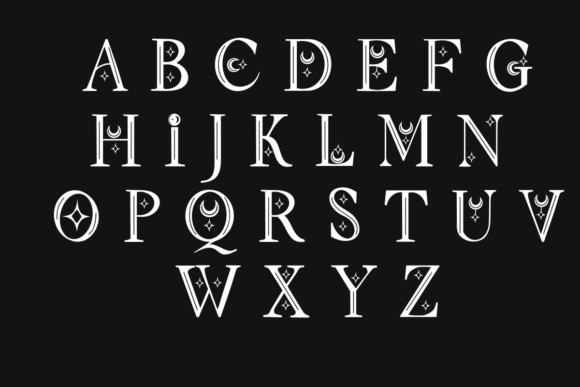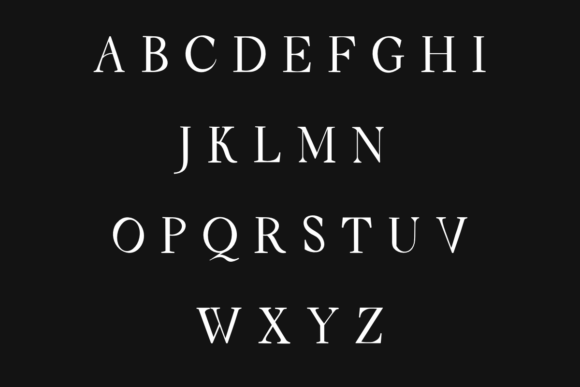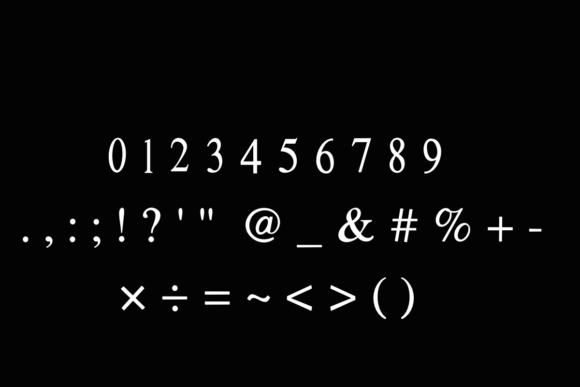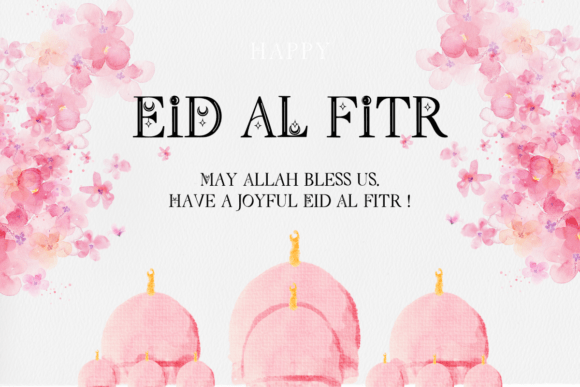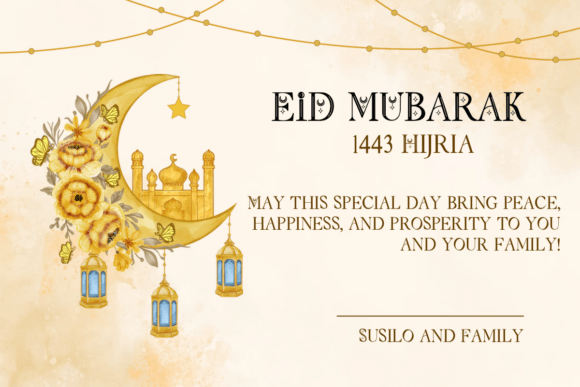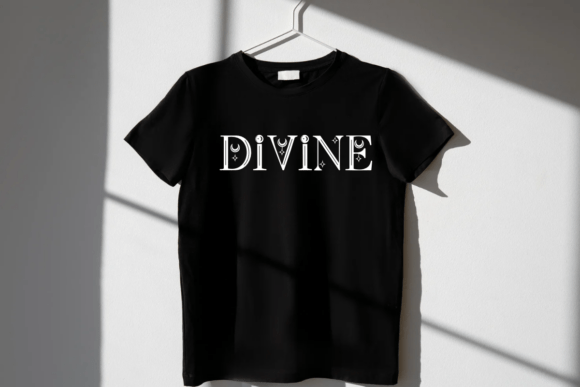
Introducing Divine Font: Elevate Your Designs with Celestial Elegance
In the realm of typography, few fonts capture the essence of mysticism and elegance as beautifully as Divine Font. This enchanting typeface seamlessly blends celestial charm with the timeless sophistication of serif style, making it an ideal choice for designers and crafters seeking to infuse their projects with an ethereal touch.
The Essence of Divine Font
Divine Font is more than just a collection of letters; it’s an experience. Each character is meticulously crafted to incorporate magical moon and star embellishments, transporting your designs to a realm of wonder and spirituality. Whether you’re working on spiritual branding, tarot cards, fantasy book covers, or any project that requires a dash of the mystical, Divine Font is the perfect companion.
Key Features of Divine Font
- Celestial Elegance: Divine Font boasts an otherworldly charm, thanks to its unique blend of serif style and celestial embellishments. Each letter is adorned with moons and stars, adding a touch of magic to your designs.
- Timeless Appeal: The serif style of Divine Font ensures that your designs remain timeless and sophisticated, avoiding the fleeting trends of modern typography.
- Versatility: From spiritual branding to fantasy literature, Divine Font’s versatility shines through. It’s suitable for a wide range of applications, including but not limited to tarot cards, fantasy book covers, and more.
- Ethereal Touch: The magical elements within each character provide an ethereal quality, perfect for designs that aim to inspire, mystify, or enchant.
Applications of Divine Font
The possibilities with Divine Font are endless, but here are some applications that truly showcase its potential:
- Spiritual Branding: Create a lasting impression with your brand’s identity by incorporating Divine Font into your logo, packaging, or marketing materials. The mystical vibe of the font will undoubtedly resonate with your audience.
- Tarot Cards and Oracle Decks: Add an air of mystery and authenticity to your tarot or oracle deck designs. Divine Font’s celestial elements complement the spiritual themes often associated with these products.
- Fantasy Book Covers: Make your fantasy novel stand out on bookstore shelves or digital platforms. The enchanting quality of Divine Font will capture potential readers’ attention, hinting at the magical journey within the pages.
- Stationery and Invitations: For those special occasions, such as weddings, baby showers, or birthdays, Divine Font can add a whimsical and memorable touch to your stationery or invitations.
Tips for Using Divine Font
To maximize the impact of Divine Font in your designs, consider the following tips:
- Balance is Key: While the celestial embellishments are a highlight, ensure they complement your design rather than overpowering it. Balance Divine Font with simpler elements to maintain visual harmony.
- Color Choices: Enhance the mystical feel with a thoughtful color palette. Soft pastels, gold, silver, and dark blues can amplify the ethereal and celestial vibe.
- Experiment with Sizes: Play with different font sizes to create visual hierarchy and emphasis. Larger sizes can showcase the intricate details, while smaller sizes maintain readability.
Divine Font offers a unique opportunity for designers and crafters to elevate their projects with a touch of celestial elegance and timeless sophistication. Its magical moon and star embellishments within each character not only add an ethereal quality but also ensure your designs stand out in a world of ordinary typography. Whether you’re delving into spiritual branding, crafting tarot cards, or conjuring fantasy book covers, Divine Font is your gateway to creating enchanting, memorable designs.
Embark on a journey of mystical creativity with Divine Font. Let its divine charm inspire your next project, transporting your audience to a realm of wonder and magic.